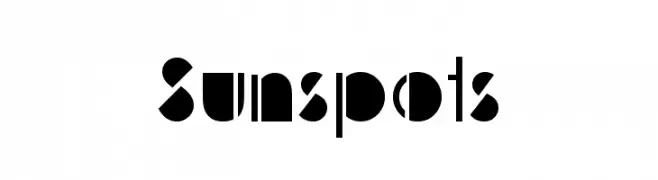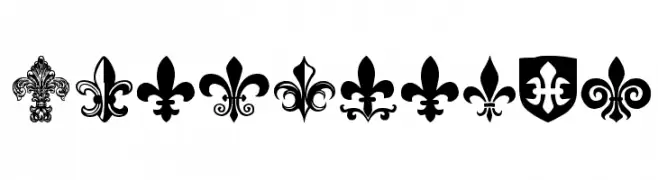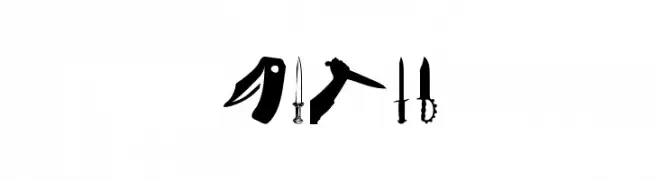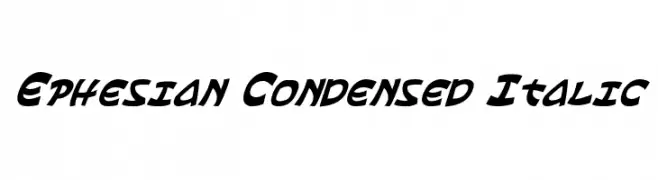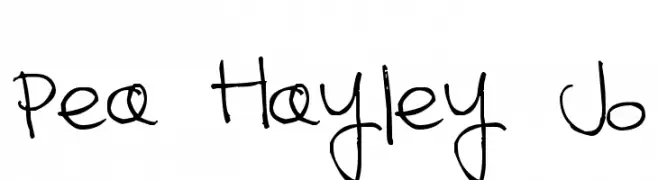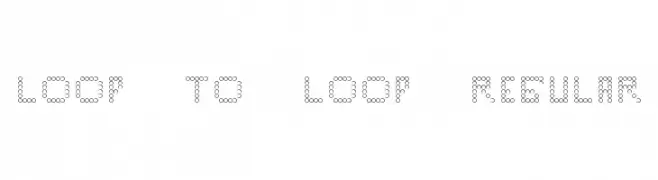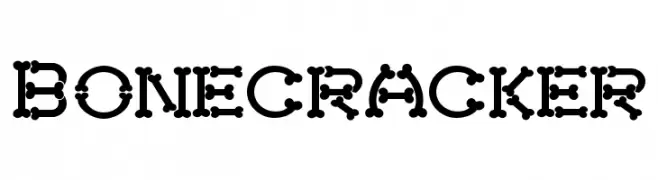
A bold, geometric font with angular and dynamic character designs.
Ornamental dingbat font with diverse fleur-de-lis motifs.
A bold display font made from knife and weapon silhouettes.
A bold, condensed, and italicized font with a dynamic and modern style.
A playful, handwritten font with a casual and whimsical style.
A modern, loop-based font with interconnected circular designs.
A playful, bone-like decorative font with bold, rounded elements.